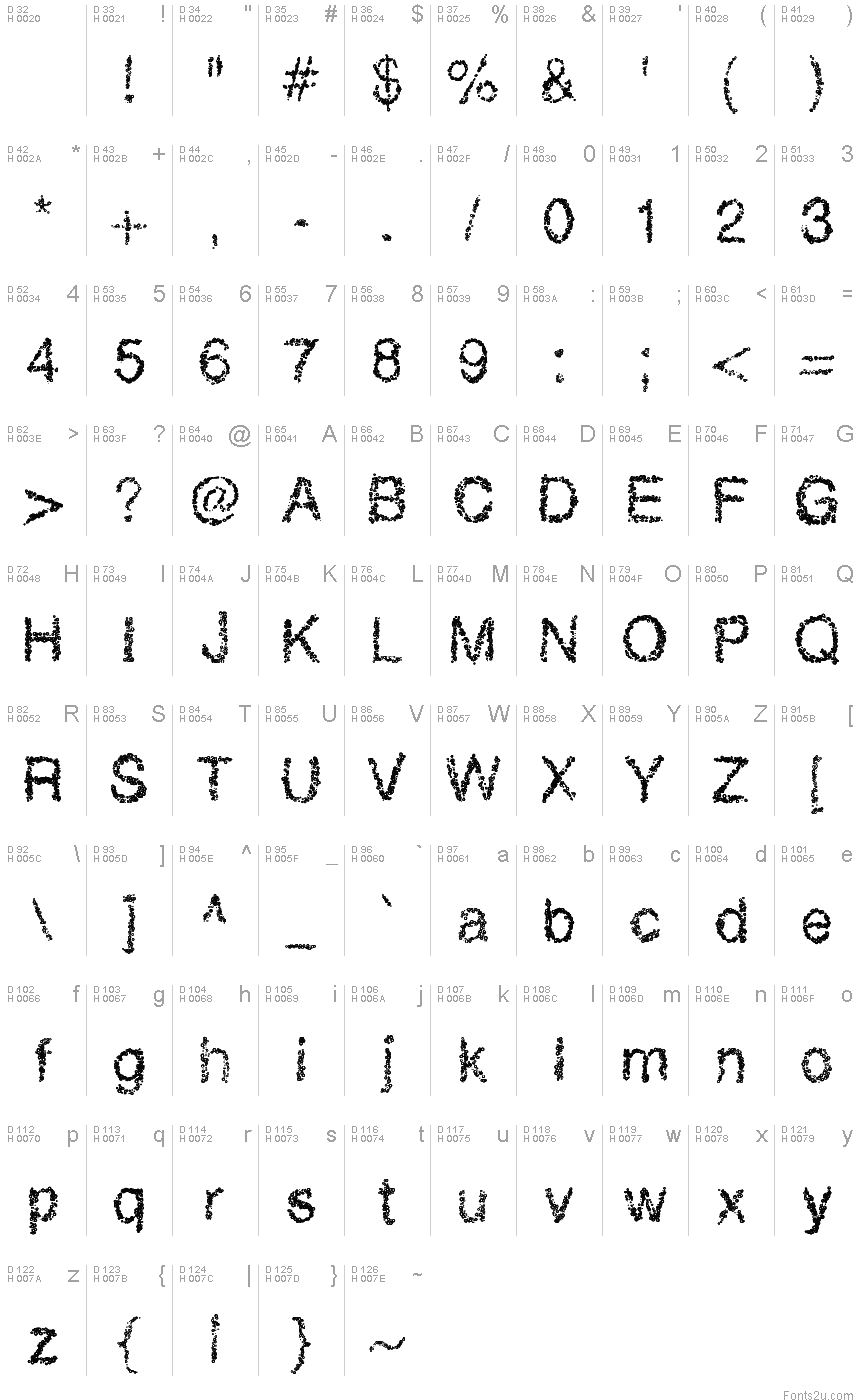
RetroBubbles
THE TYPEFACE
Retro Bubbles was a little experiment of what I could do with the program I use to make these typefaces. Its a fun, silly and simple typeface free for personal use.
AmberKuivenhoven